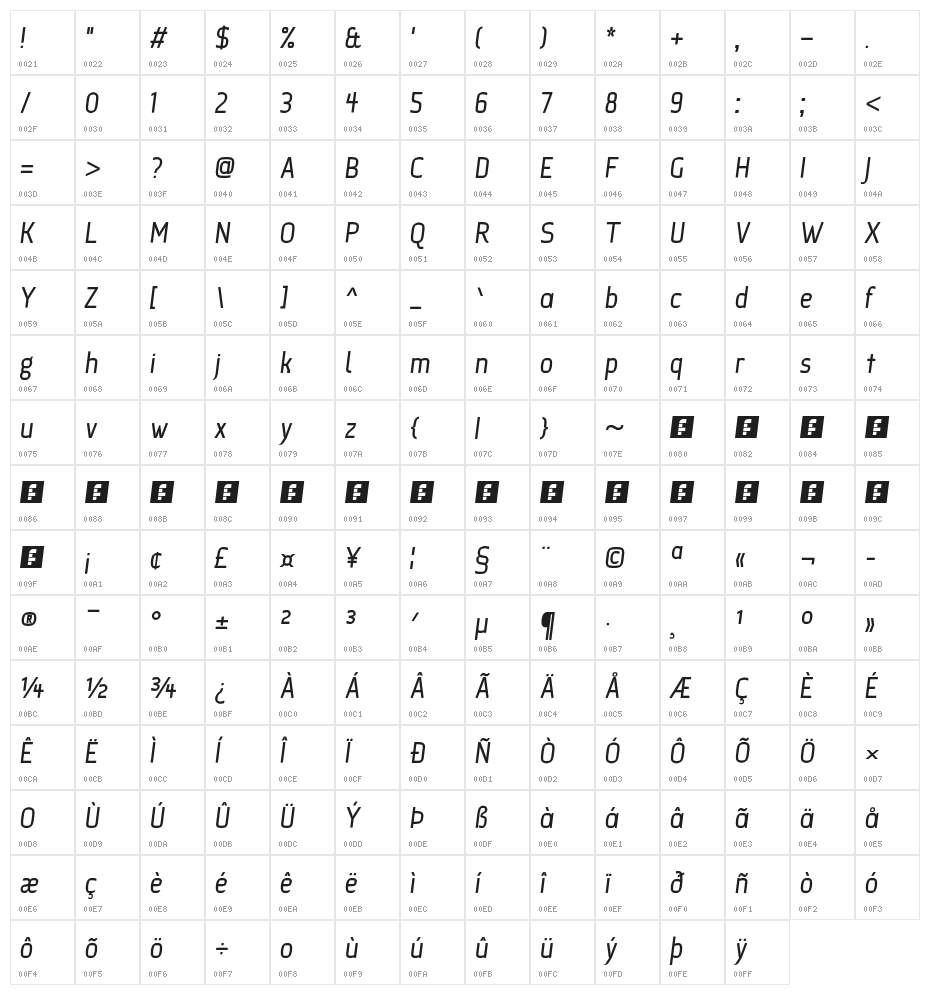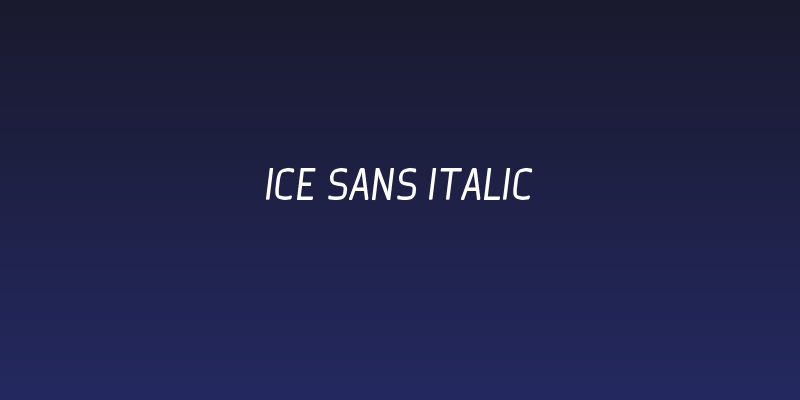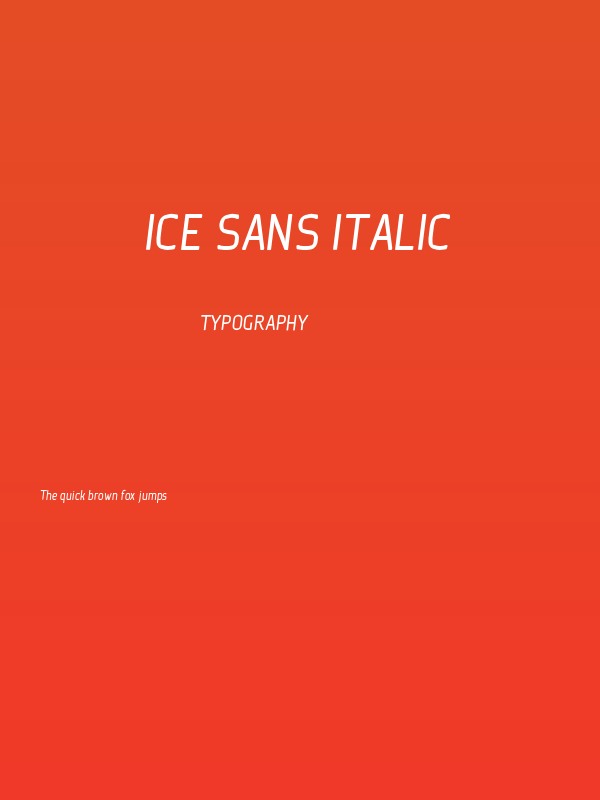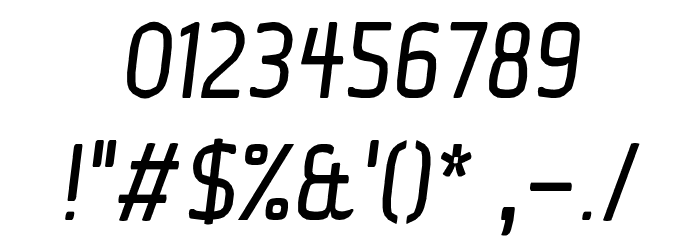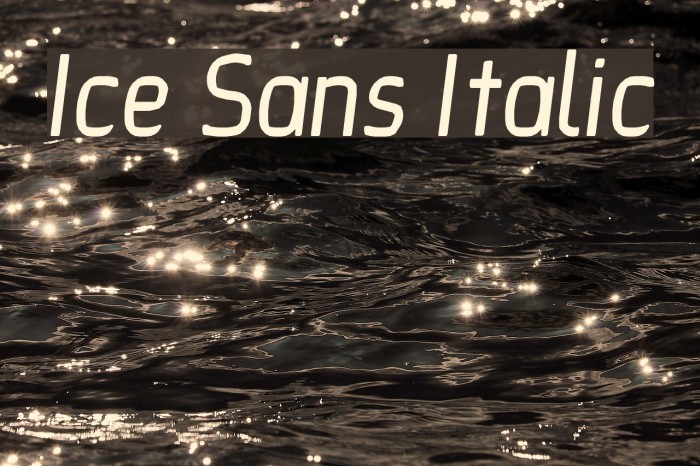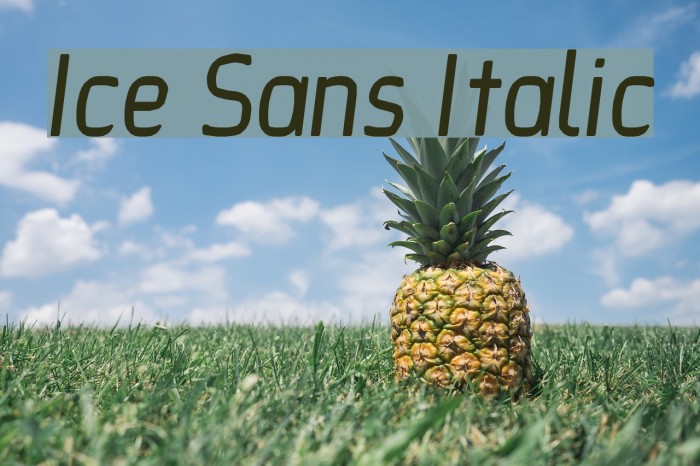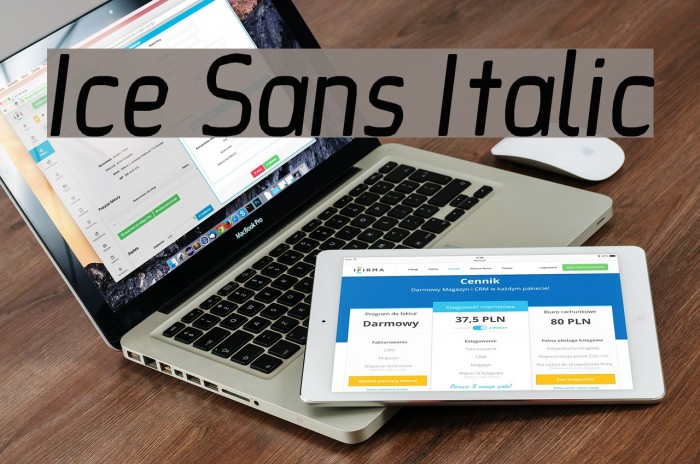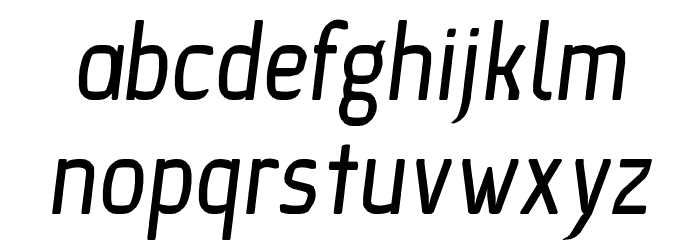
Ice Sans Italic Font
This font features a sleek and modern sans-serif design with an italic slant, giving it a dynamic and forward-leaning appearance. The characters are clean and geometric, with consistent stroke widths that provide a uniform look. The uppercase letters are bold and assertive, while the lowercase letters maintain a smooth and approachable style. Numbers are clear and easy to read, making them suitable for various applications. Special characters are well-integrated, maintaining the overall aesthetic of the font. The spacing between characters is balanced, ensuring readability across different sizes.
| Proposed Projects | Ideal for modern branding, digital interfaces, advertising, and editorial design. |